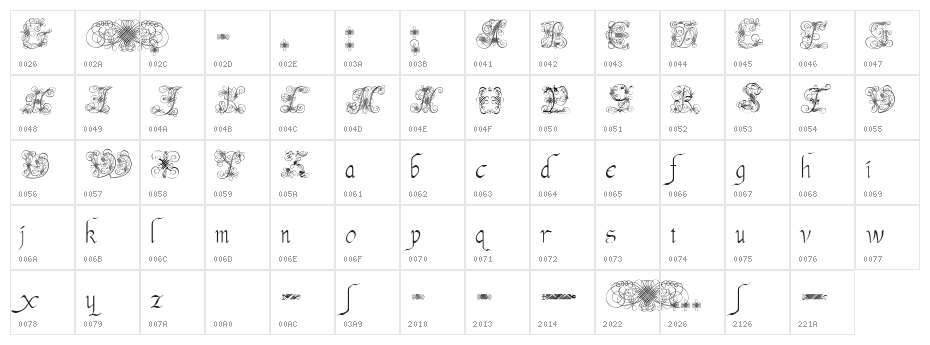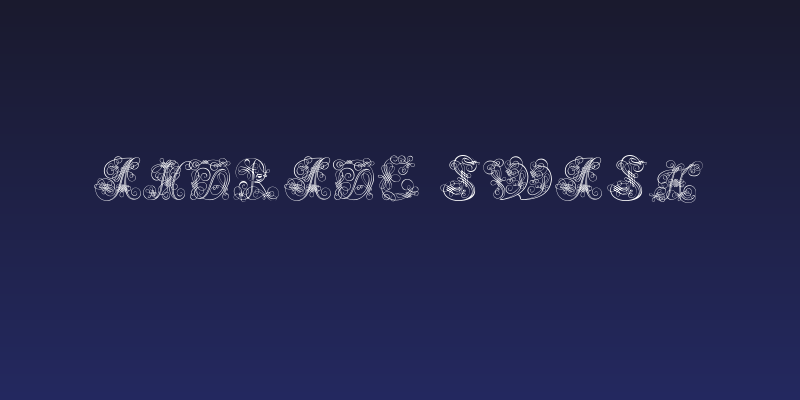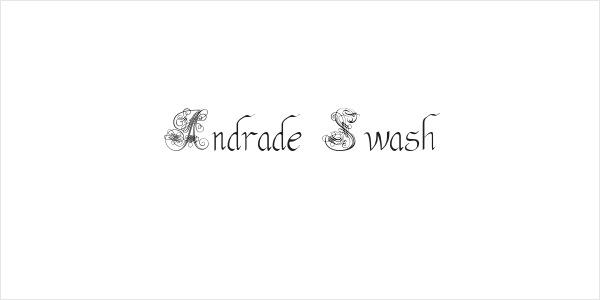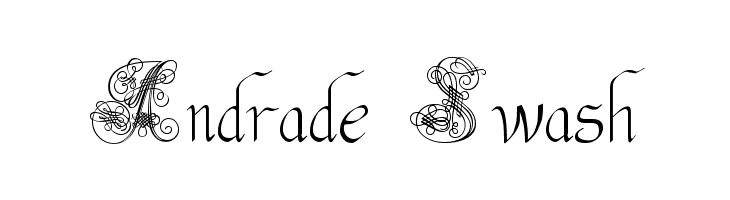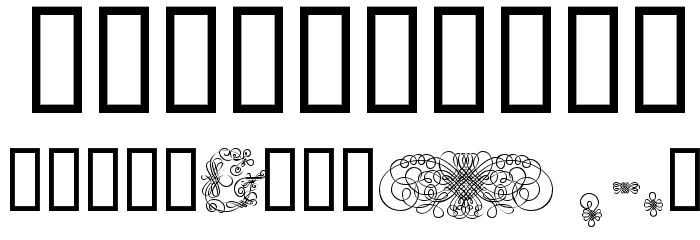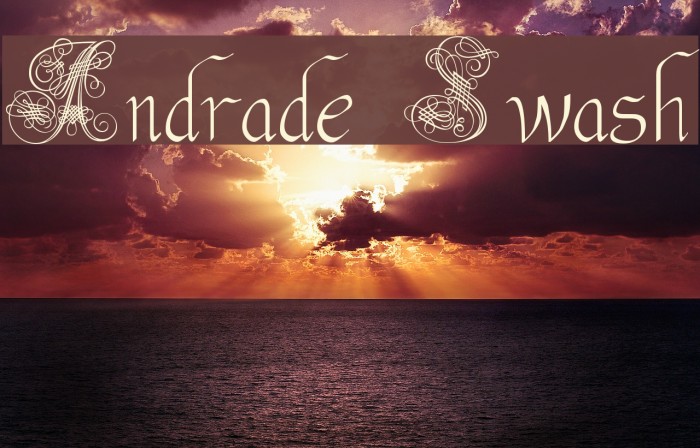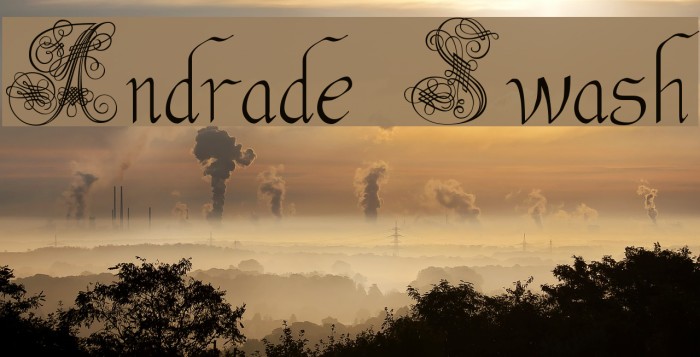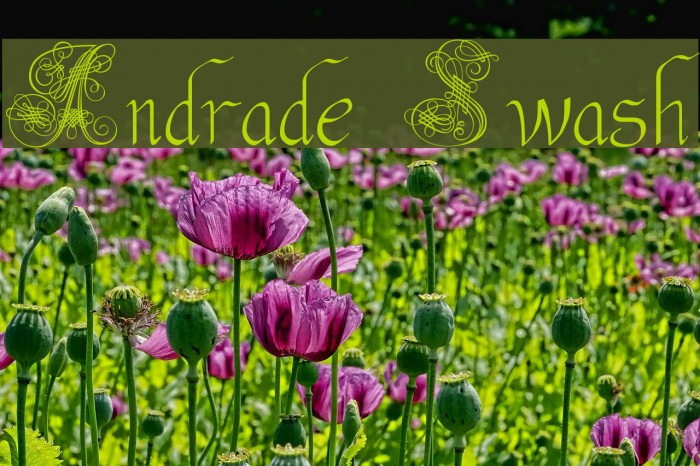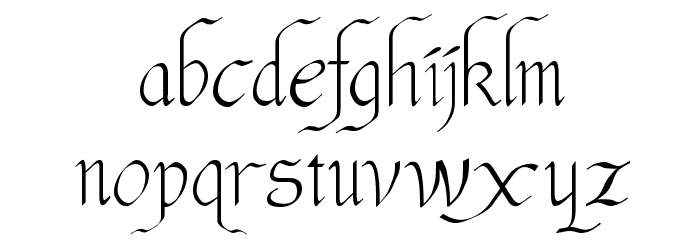
Andrade Swash Font
Andrade Swash Description
This font features an elaborate and decorative style, characterized by intricate swirls and flourishes that embellish each letter. The uppercase letters are particularly ornate, with detailed embellishments that give them a regal and sophisticated appearance. The lowercase letters maintain a more traditional script style, offering a contrast to the highly decorative uppercase. The font includes a range of special characters that are equally adorned with intricate designs, making it ideal for projects that require a touch of elegance and sophistication. The overall look is reminiscent of vintage calligraphy, making it suitable for formal invitations, certificates, or any design that seeks to evoke a sense of classic elegance.
| Overall Style | Vintage |
| Proposed Projects | Ideal for wedding invitations, formal event programs, certificates, and vintage-themed branding. |